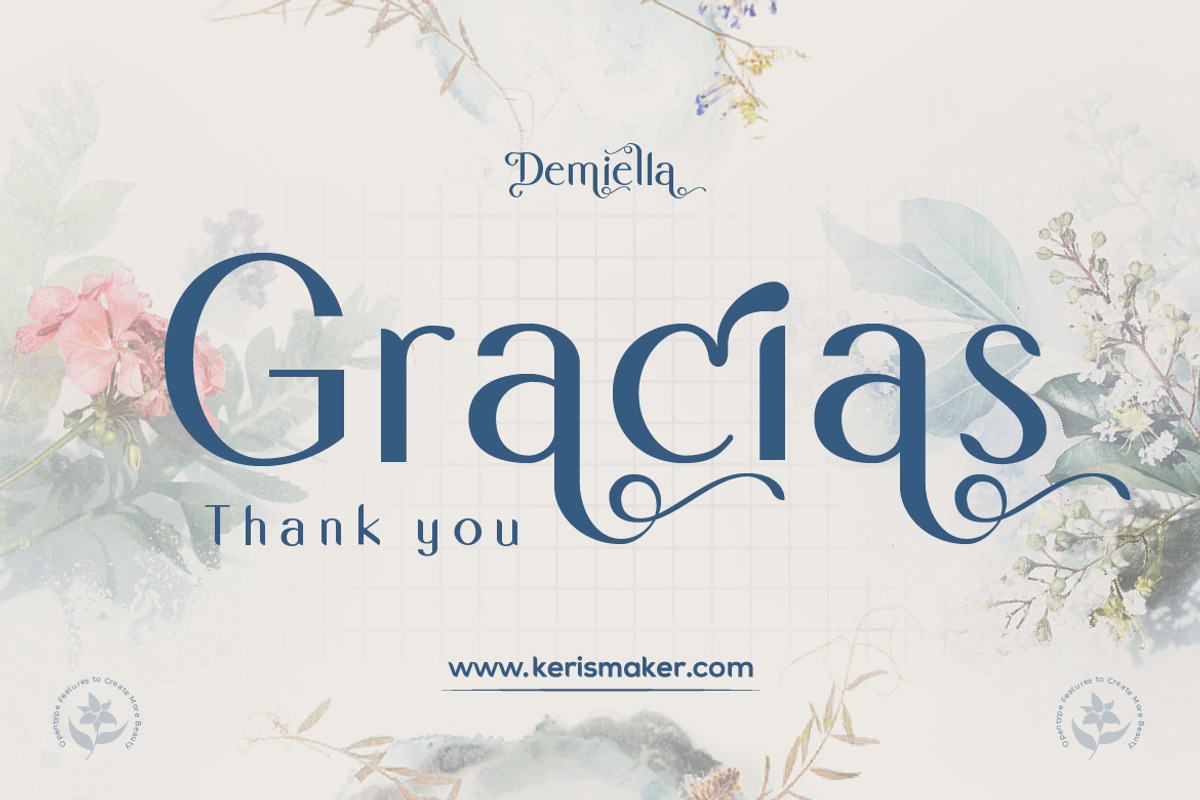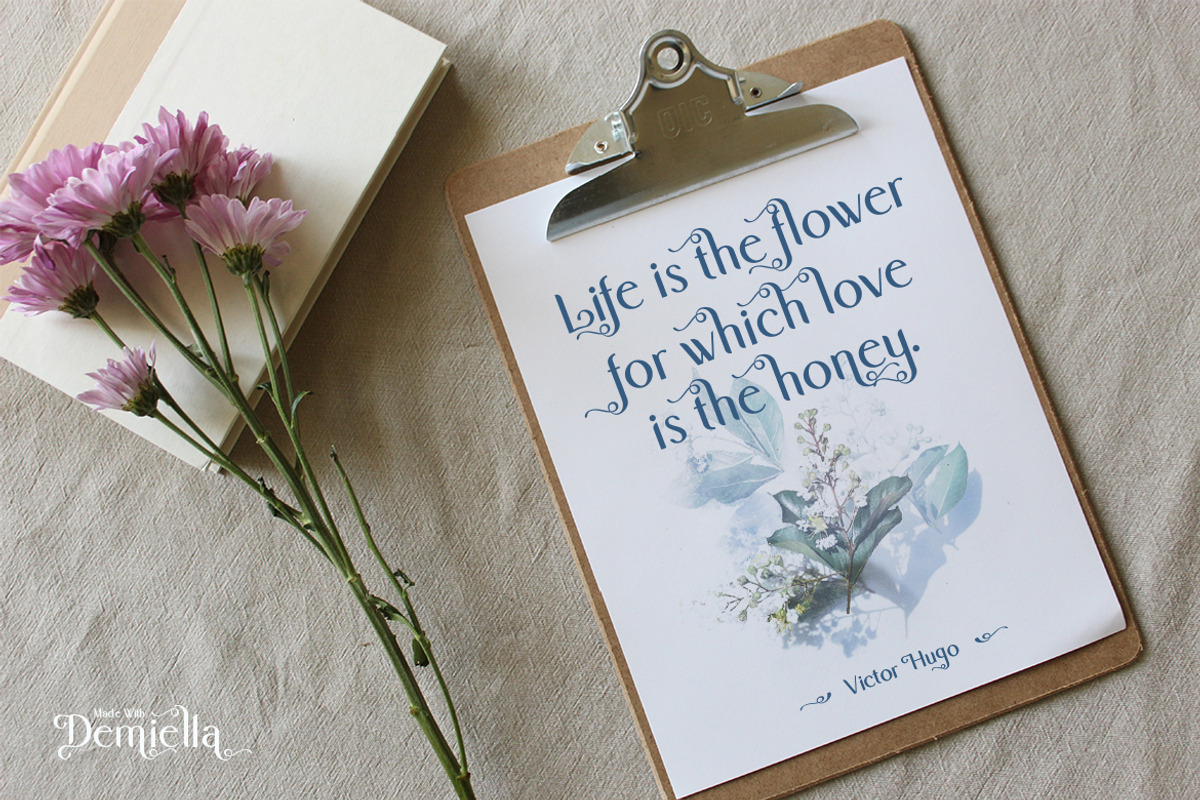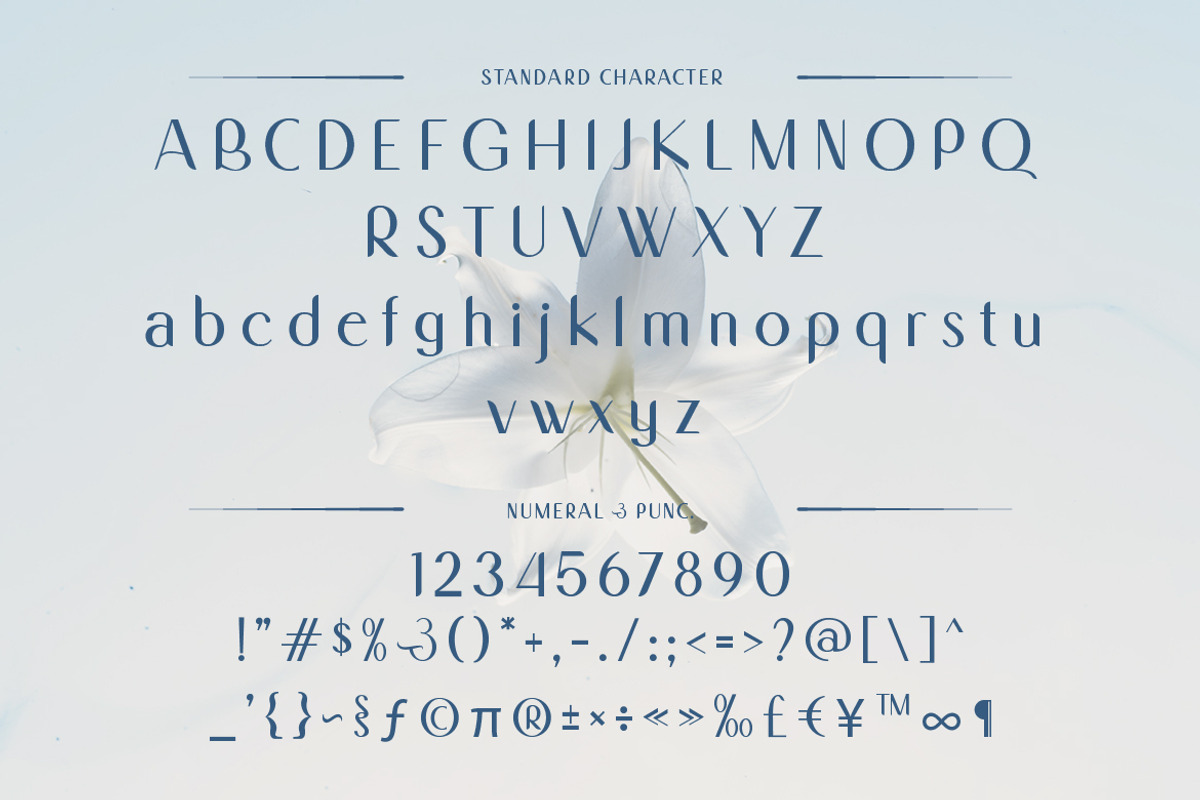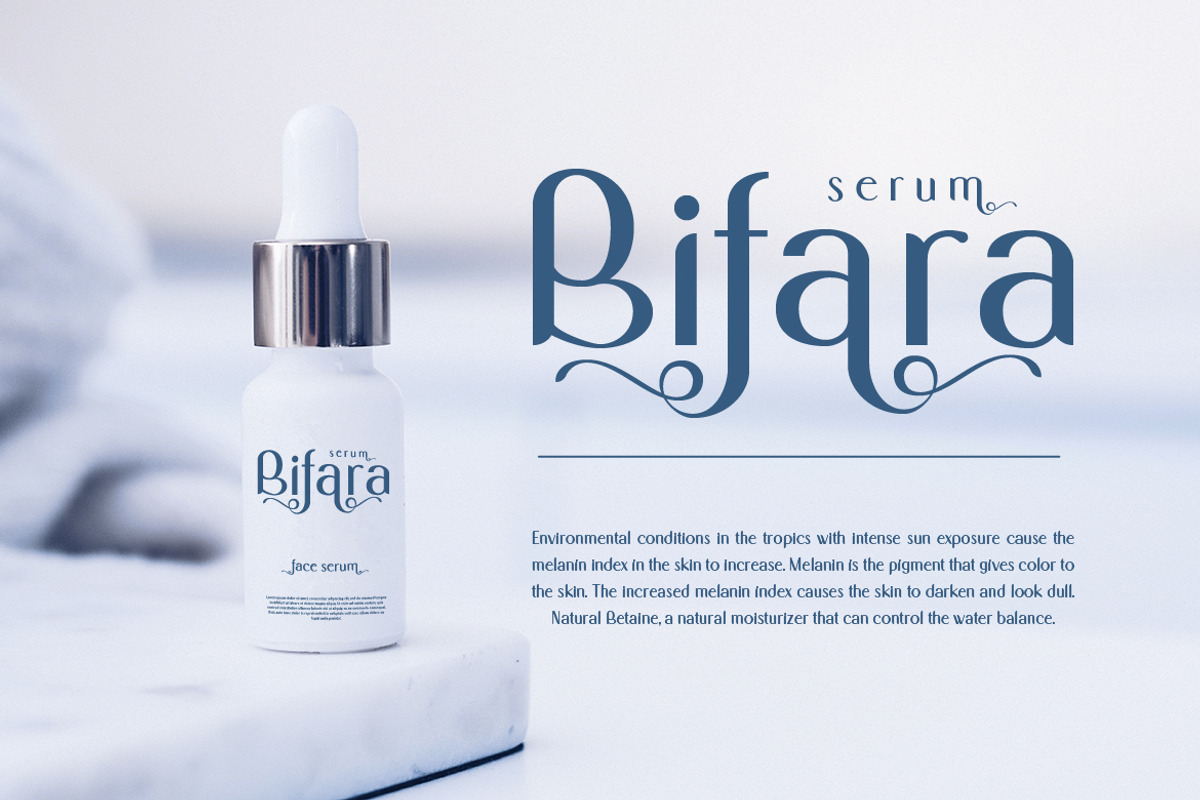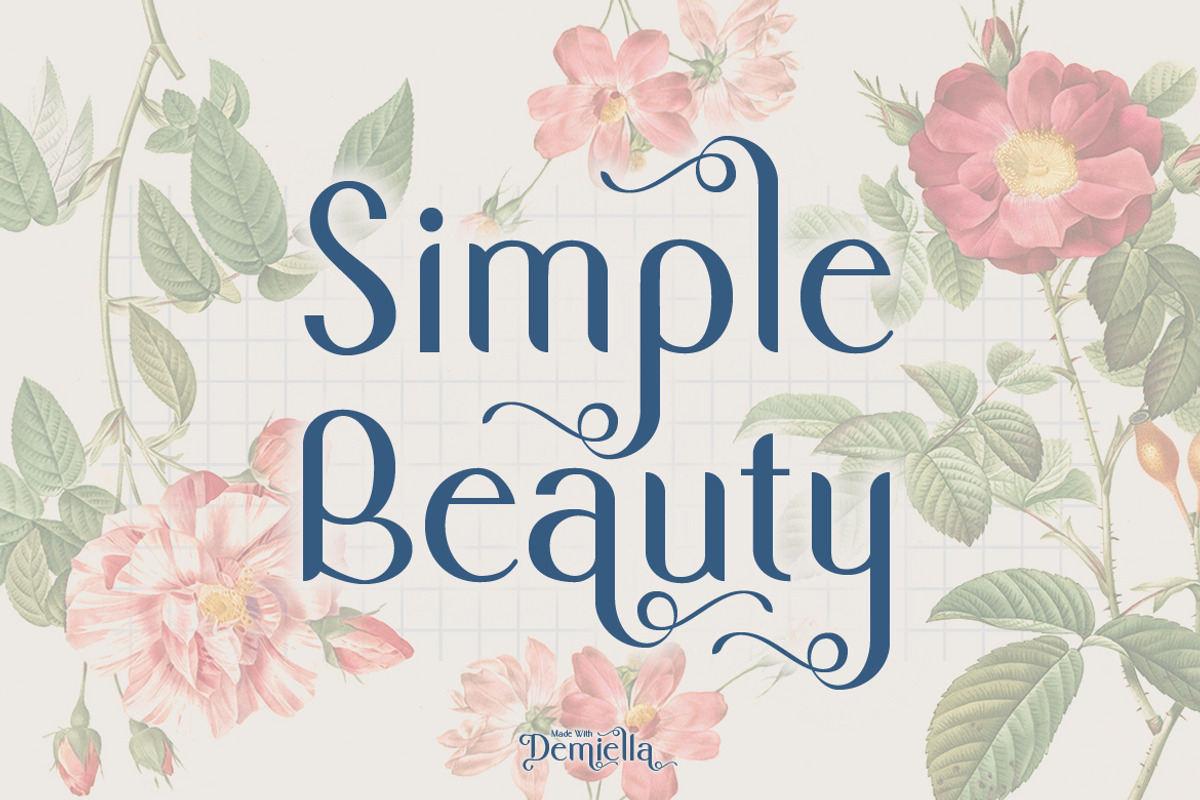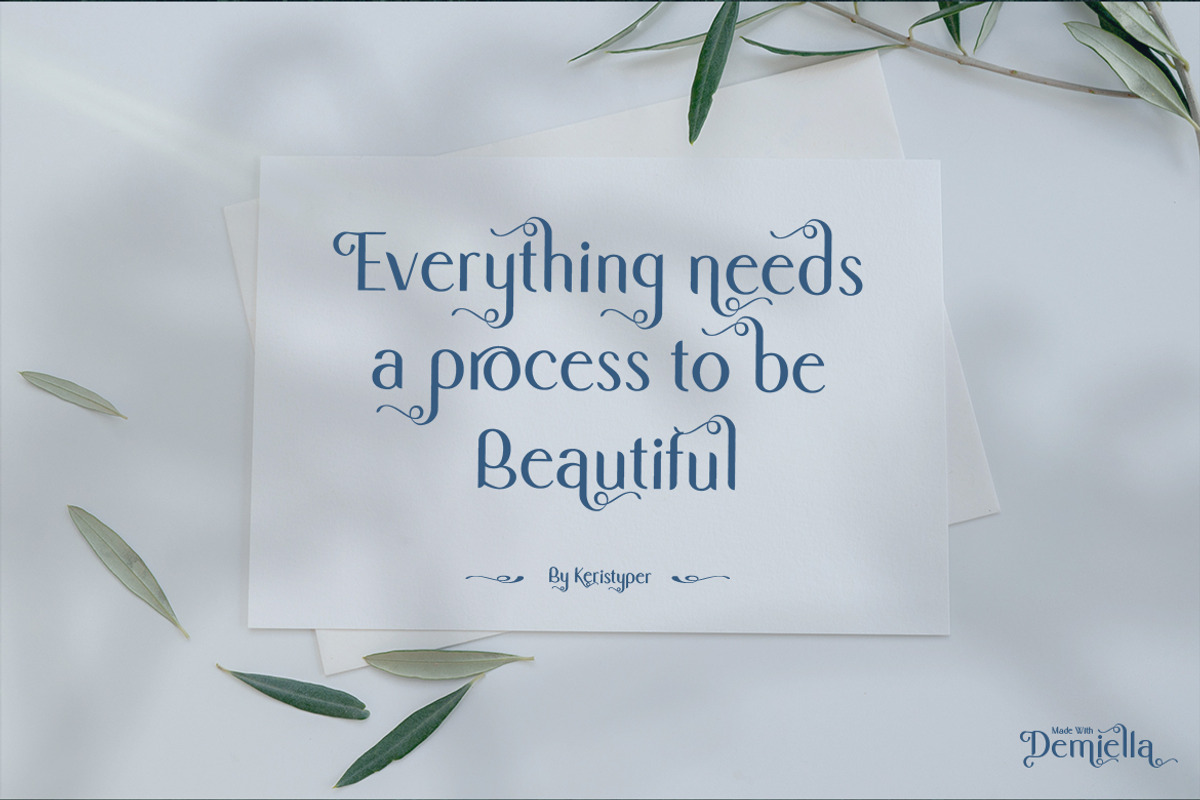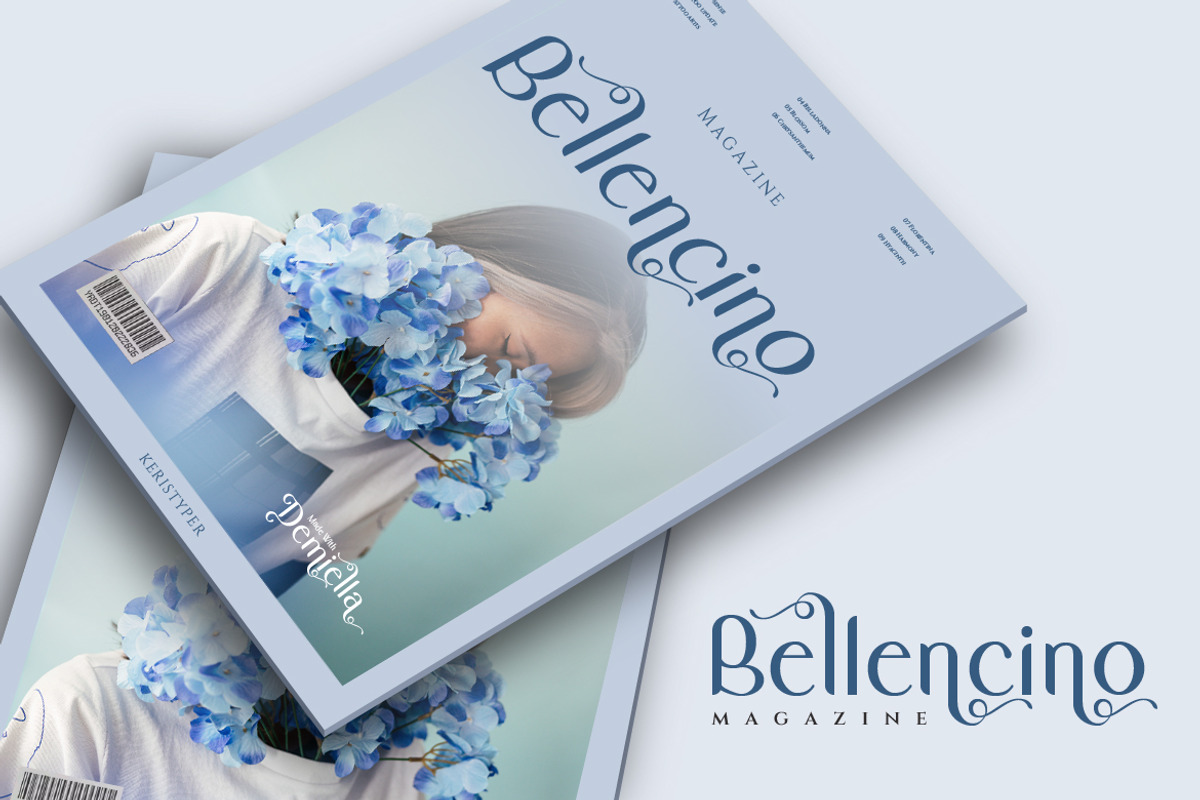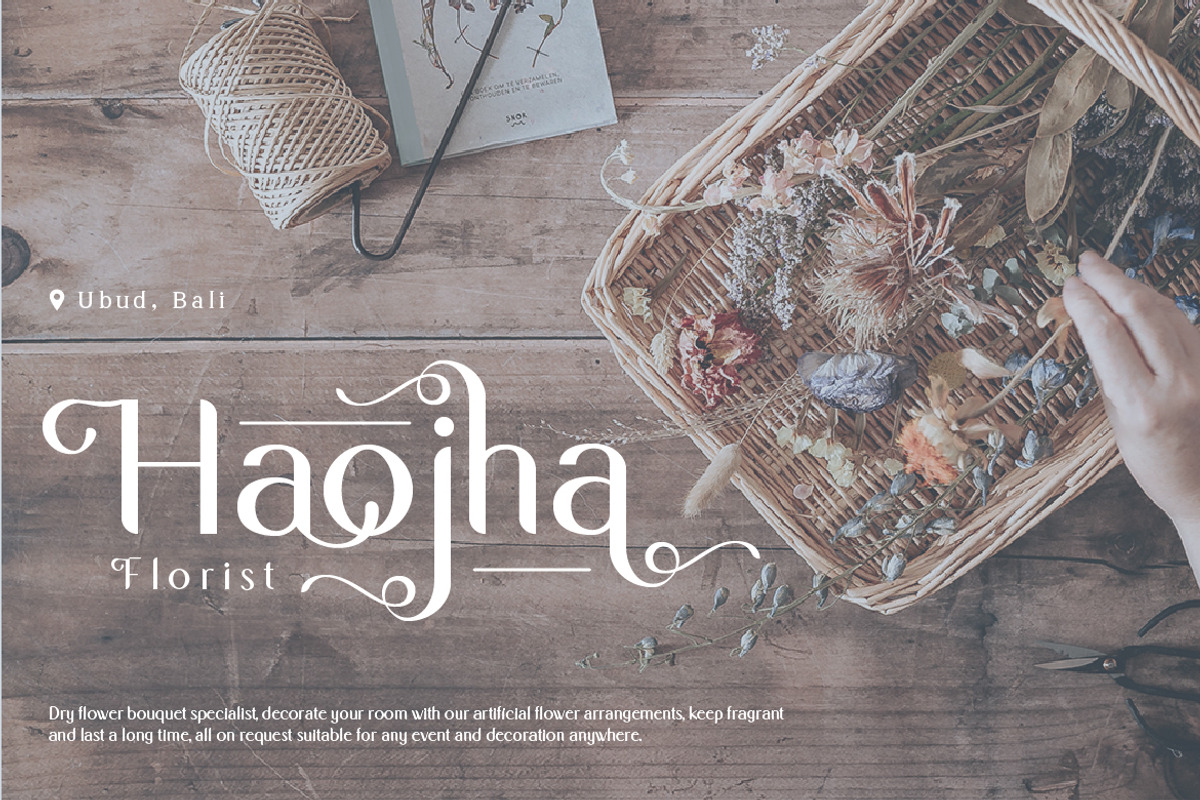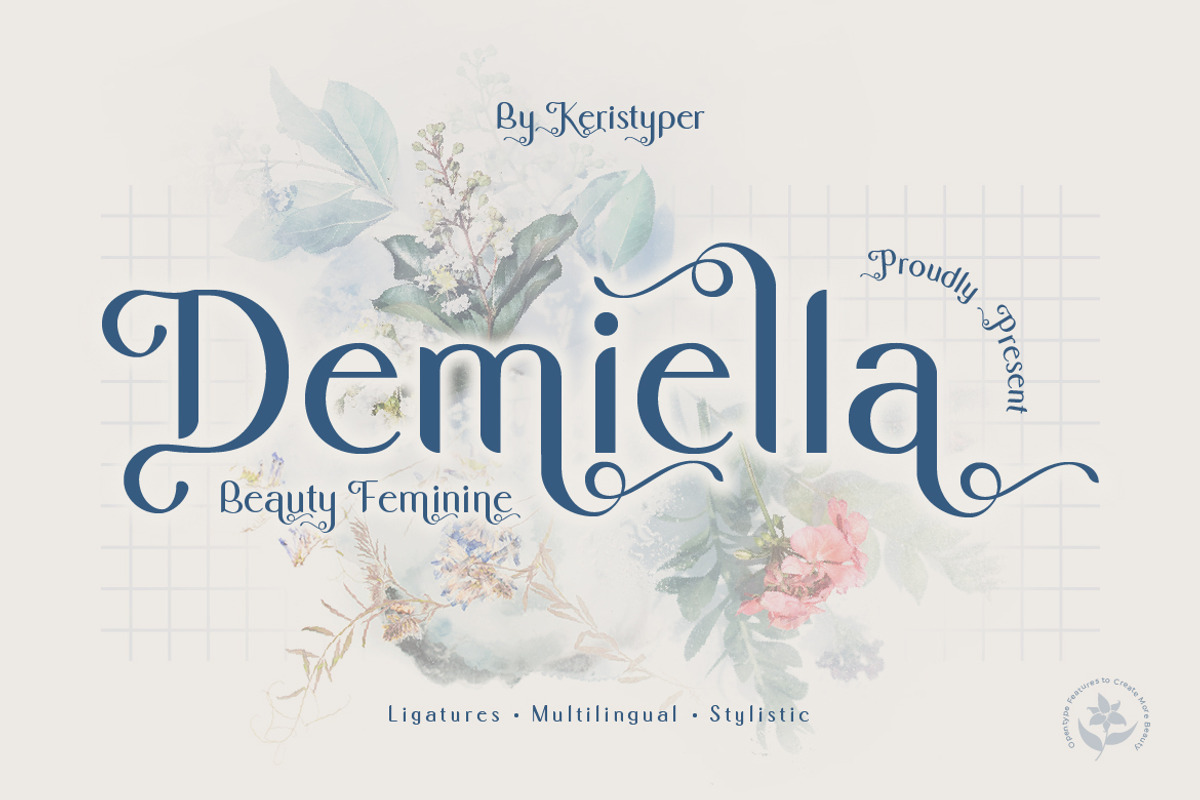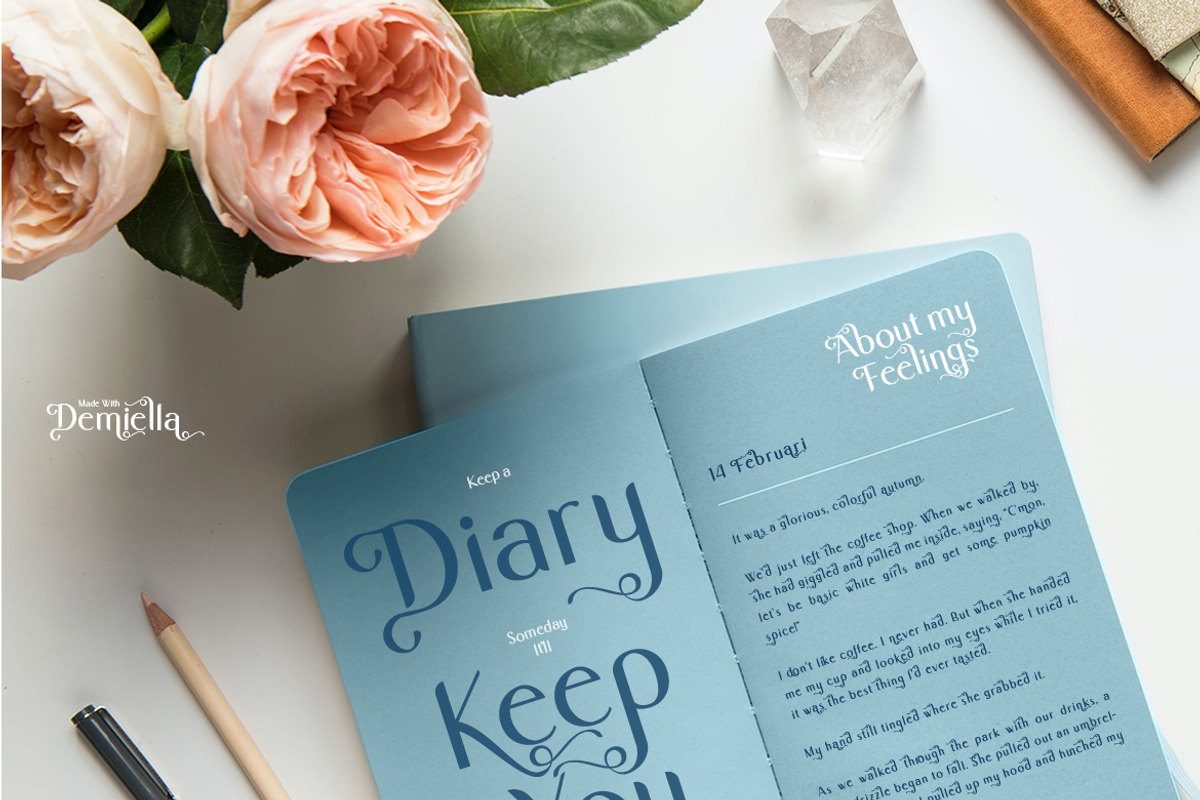
Demiella
Demiella is an elegant beauty sans serif. Simple letter shapes with playful swash & stylistic, keeping its legibility high. This font is good for logo design, Social media, Movie Titles, Books Titles, short text even long text letters, and good for your secondary text font with sans or serif.
- Standard Uppercase & Lowercase
- Multilingual : ä ö ü Ä Ö Ü ß ¿ ¡
- Alternate & Ligature